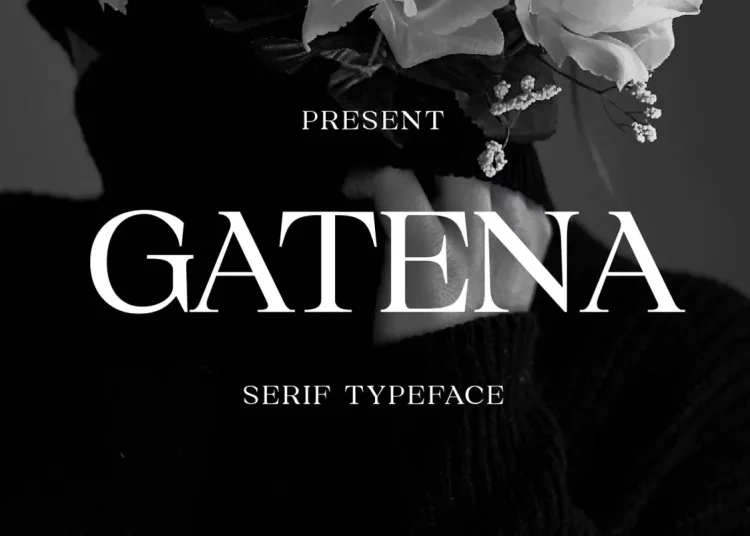
Gatena Font
Introducing Gatena Serif Modern Classic font—a harmonious blend of timeless luxury and contemporary sophistication. This exquisite typeface seamlessly marries the opulence of the past with the sleekness of the present, resulting in a design that radiates elegance and strength.
Crafted with meticulous attention to detail, every letter of Gatena Serif embodies a sense of refinement and perfection. Its smooth and balanced design exudes a sense of luxury, making it the perfect choice for projects that demand an aura of sophistication and prestige.
Gatena Serif is tailor-made for designs that evoke a sense of classic luxury, such as wedding invitations, high-end product advertisements, or corporate logos seeking an elegant and distinguished appearance. Whether gracing the pages of a prestigious event invitation or adorning the packaging of luxury goods, Gatena Serif elevates every design with its timeless charm.